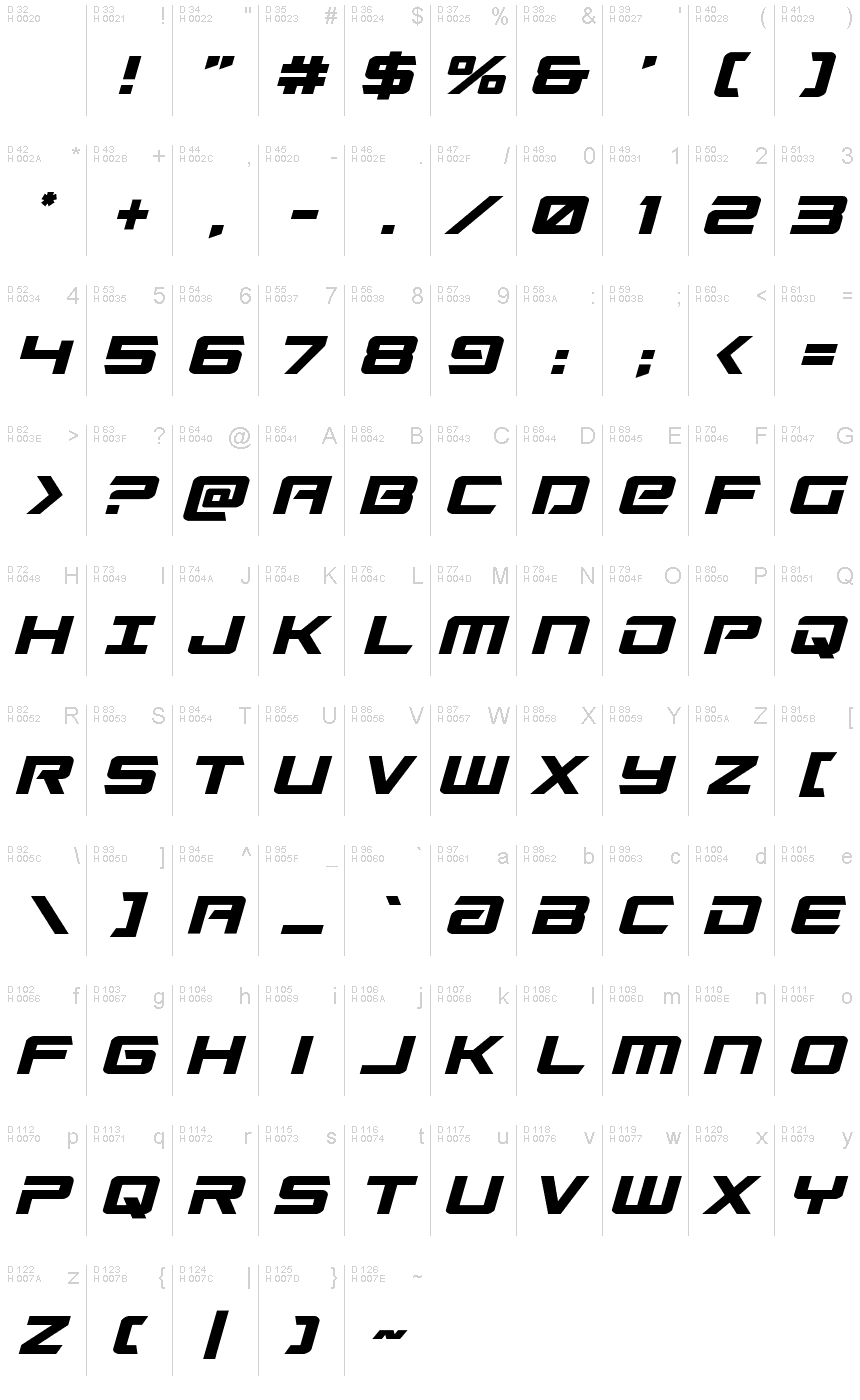
Captain Falcon Italic
Captain Falcon Italic is a visually striking and modern display font from the renowned designer Iconian Fonts. Its semi-bold weight and extra-expanded width create a unique futuristic aesthetic that is perfect for various projects. Use this font to add a touch of sophistication to your website headers, logo designs, tech-related branding, or even futuristic-themed print materials. With its sleek curves and bold presence, Captain Falcon Italic will captivate your audience and make your message stand out in any digital or print medium. Elevate your design projects with this cutting-edge typeface that exudes confidence and innovation.